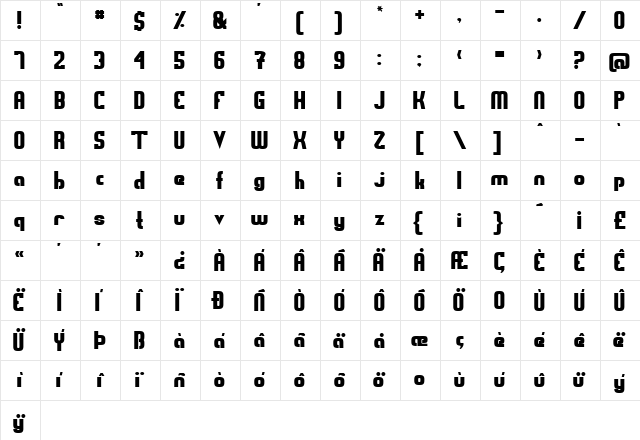
Sweden Funkis Straight Regular
Sweden Funkis Straight trades formality for fun, with bouncy, characterful letterforms that bring warmth and energy to any project.
Great for children's books, toy packaging, family event branding, and casual consumer-facing design.
Font Pairing: Pairs well with a rounded or humanist sans for body copy, maintaining the friendly tone without relying on Sweden Funkis Straight to carry extended reading.
Pro Tip: Avoid using Sweden Funkis Straight for long passages of text — it works best for headlines, labels, and short calls to action.